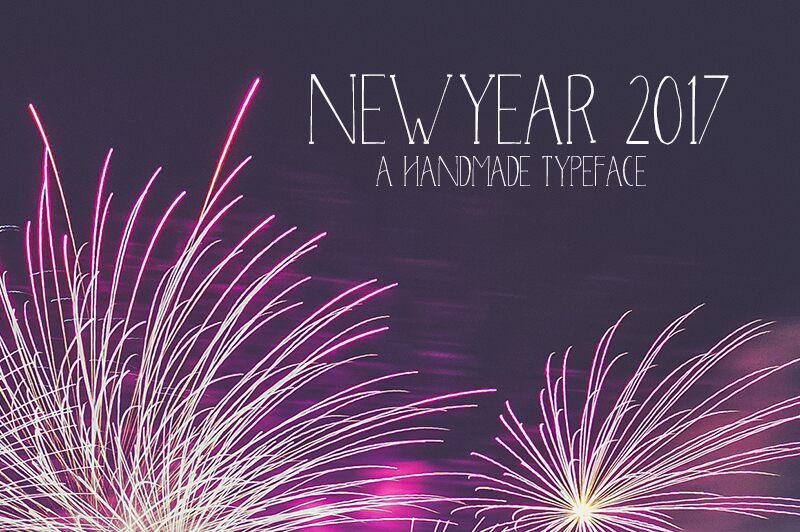
NewYear 2017 is a striking and whimsical display font designed by Ahsan. With its retro-inspired aesthetic and light, condensed character width, this font exudes a sense of playfulness and nostalgia. The fluid, uneven strokes and slightly asymmetrical letterforms lend the design a handcrafted, organic quality, creating a visually engaging and memorable typographic expression.
This font would be well-suited for a range of design applications, from celebratory event branding and festive packaging to editorial layouts with a vintage flair. Its distinctive character makes it an excellent choice for attention-grabbing headlines, logotypes, and other display-oriented design elements that aim to capture the spirit of a new year.
NewYear 2017
Ahsan